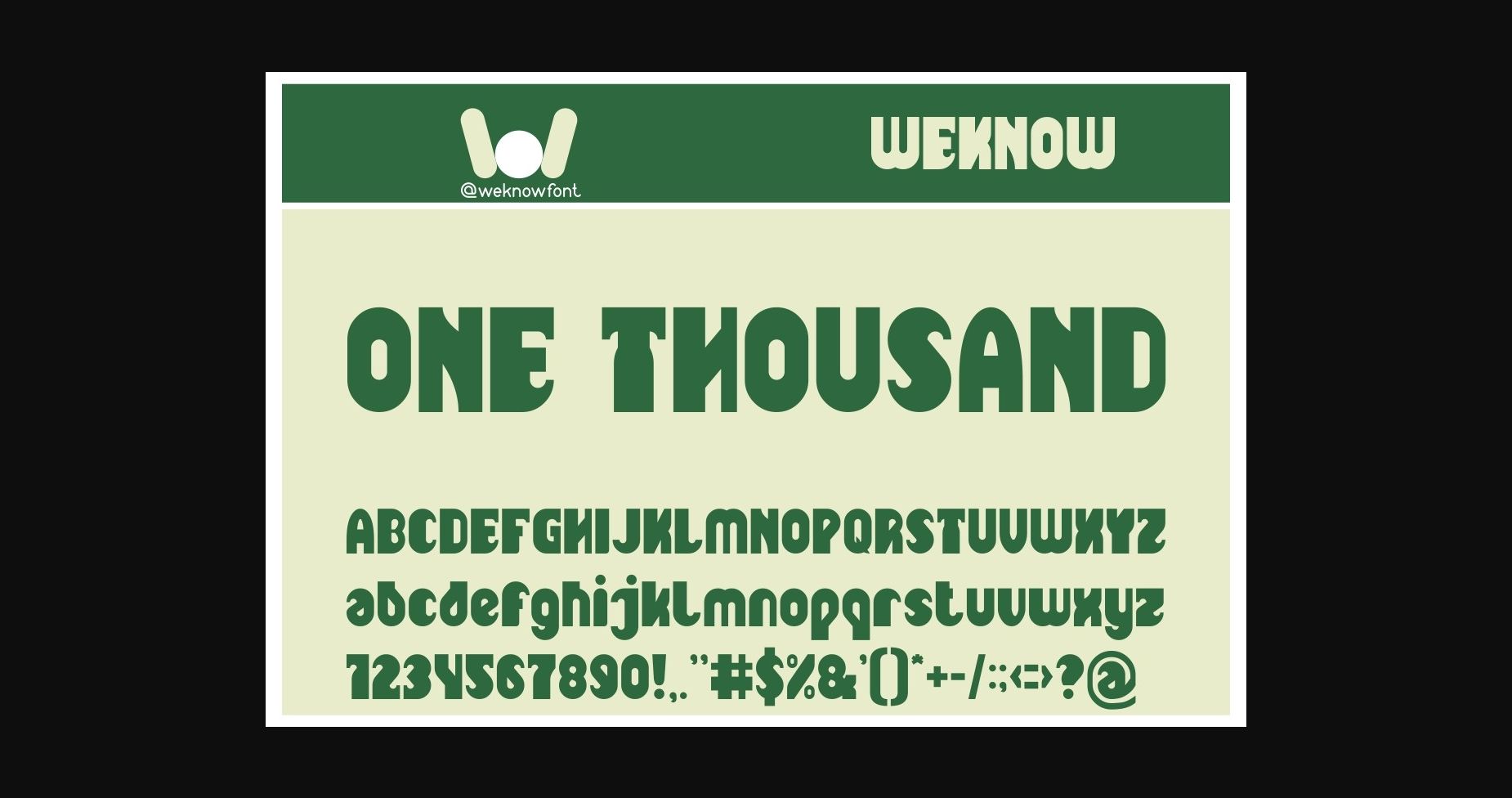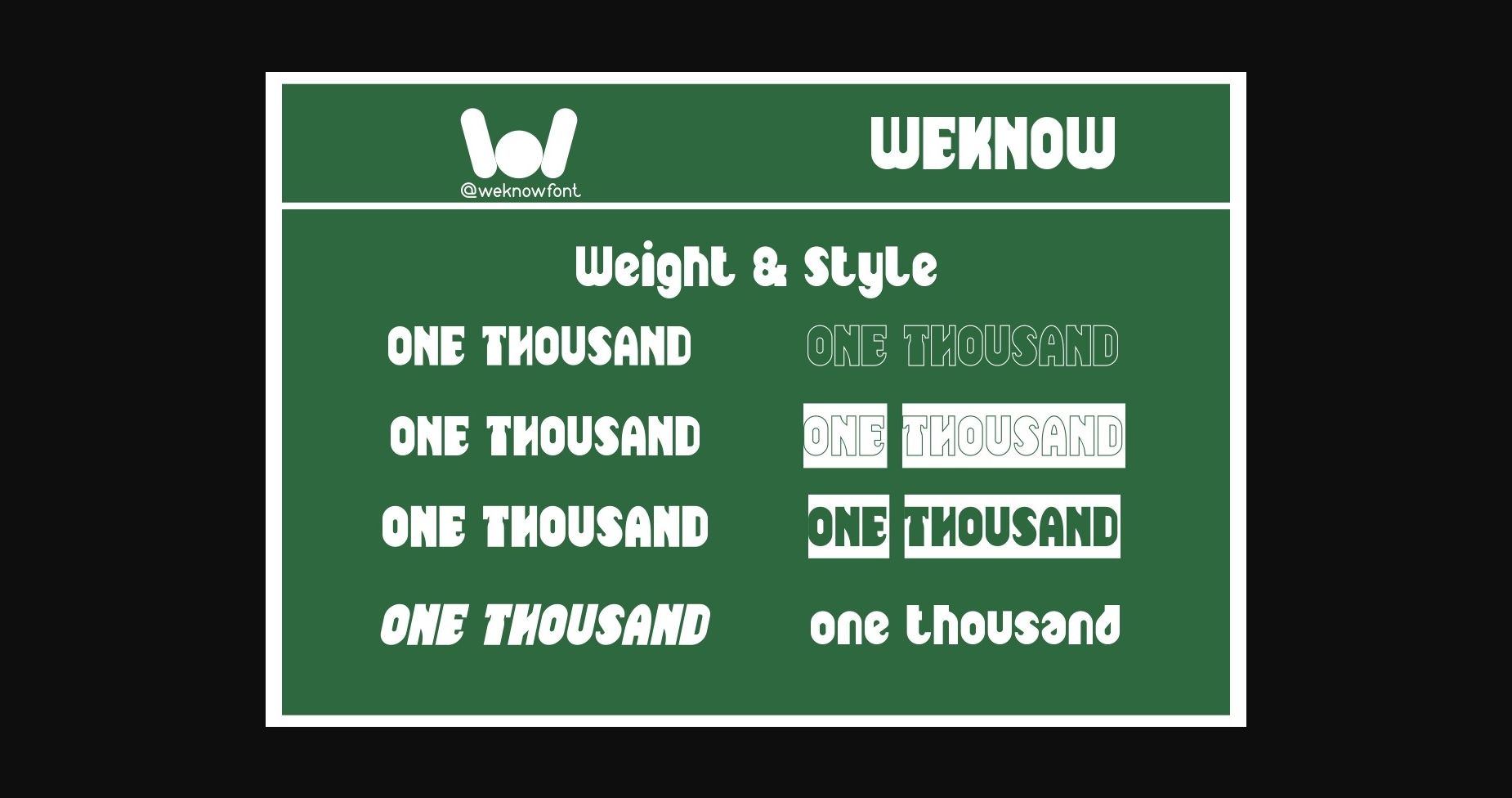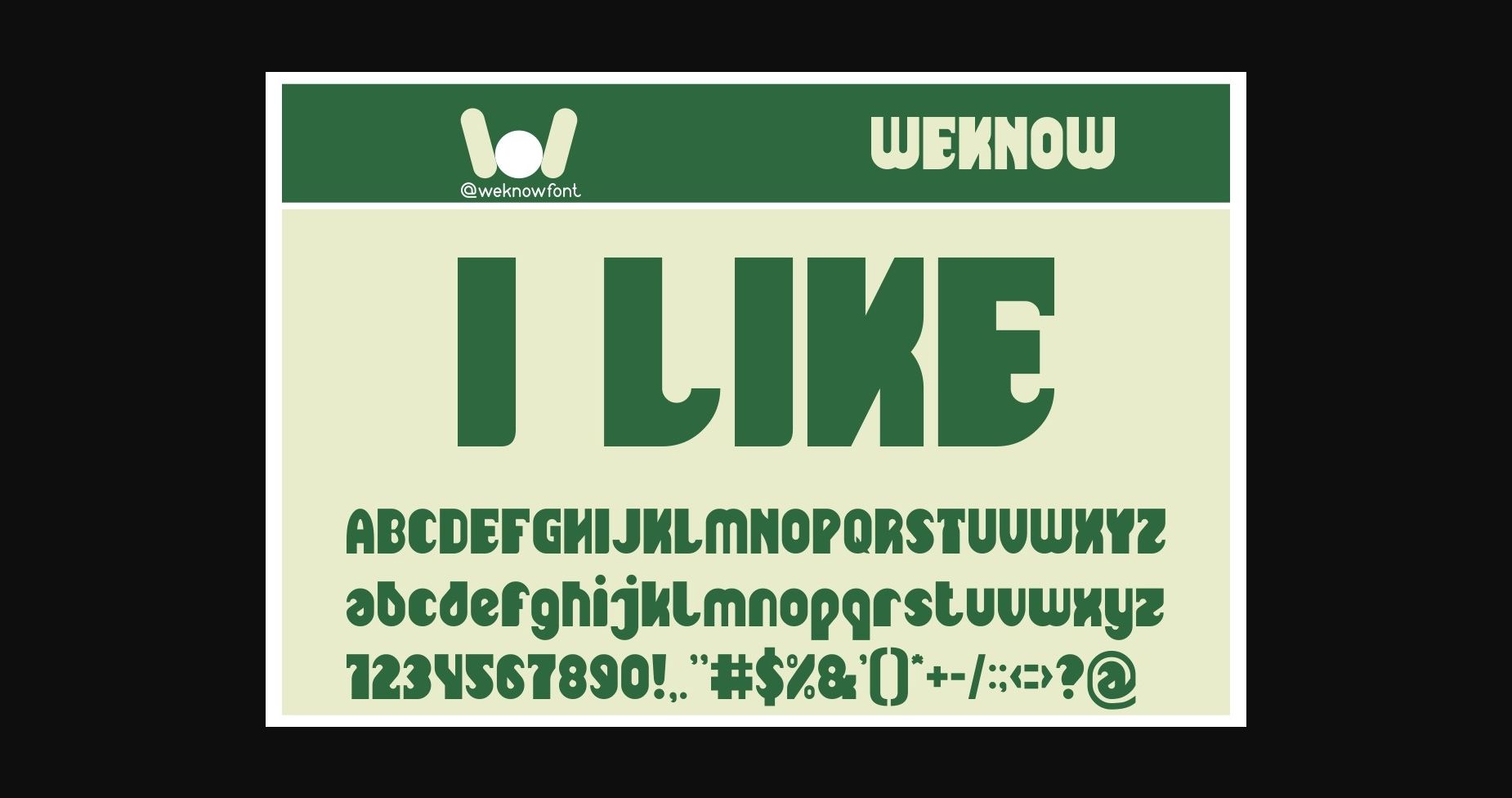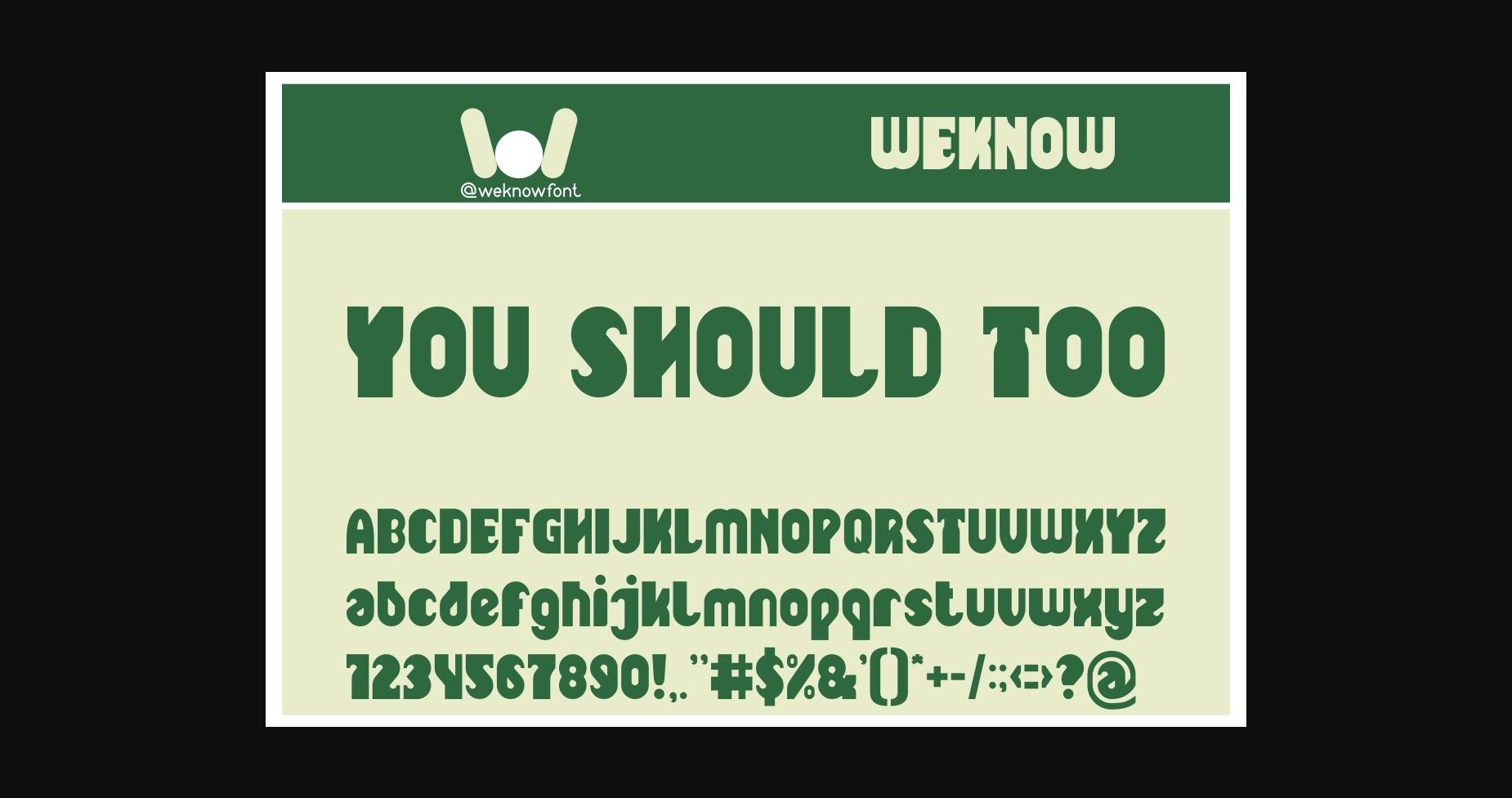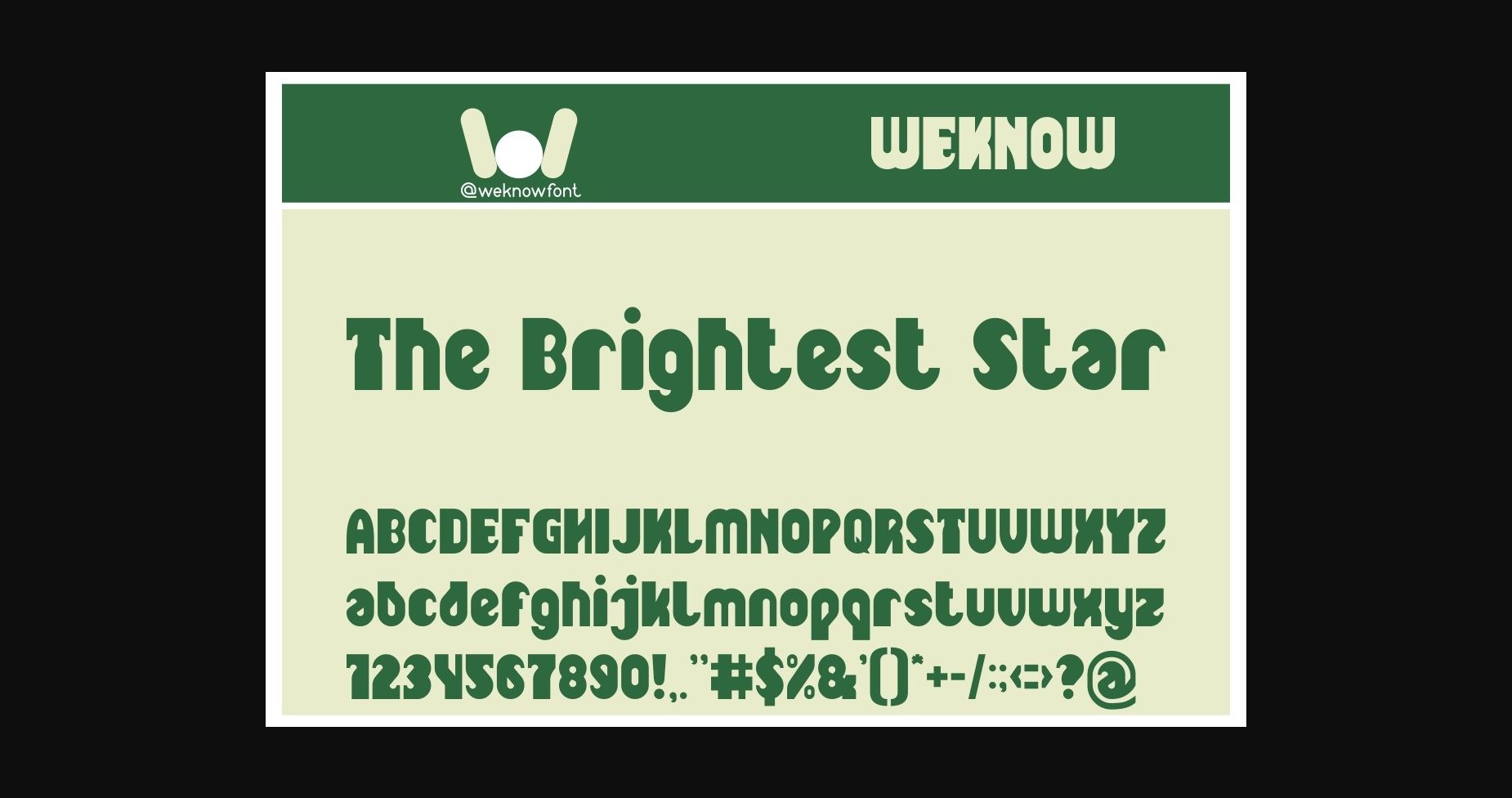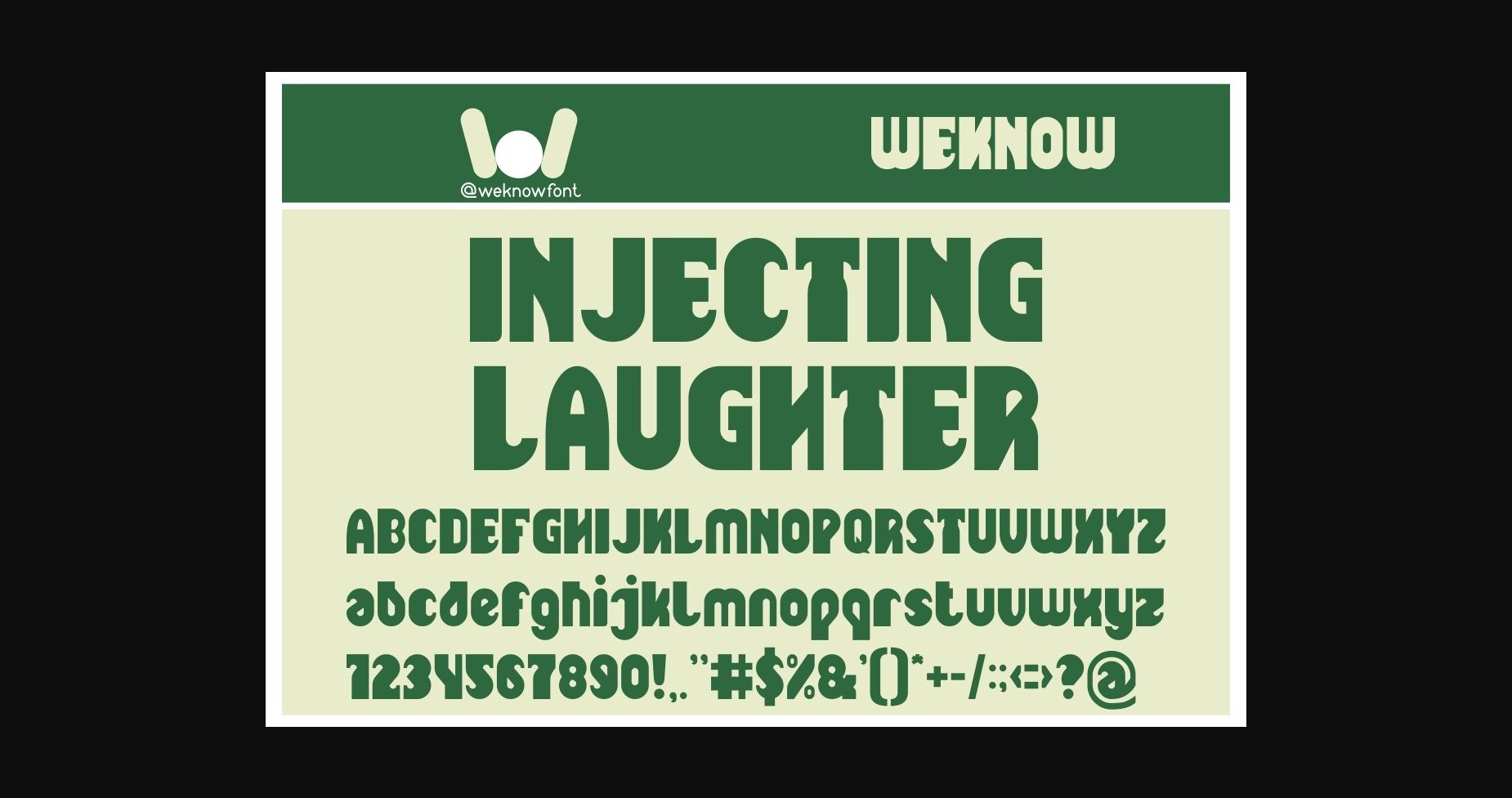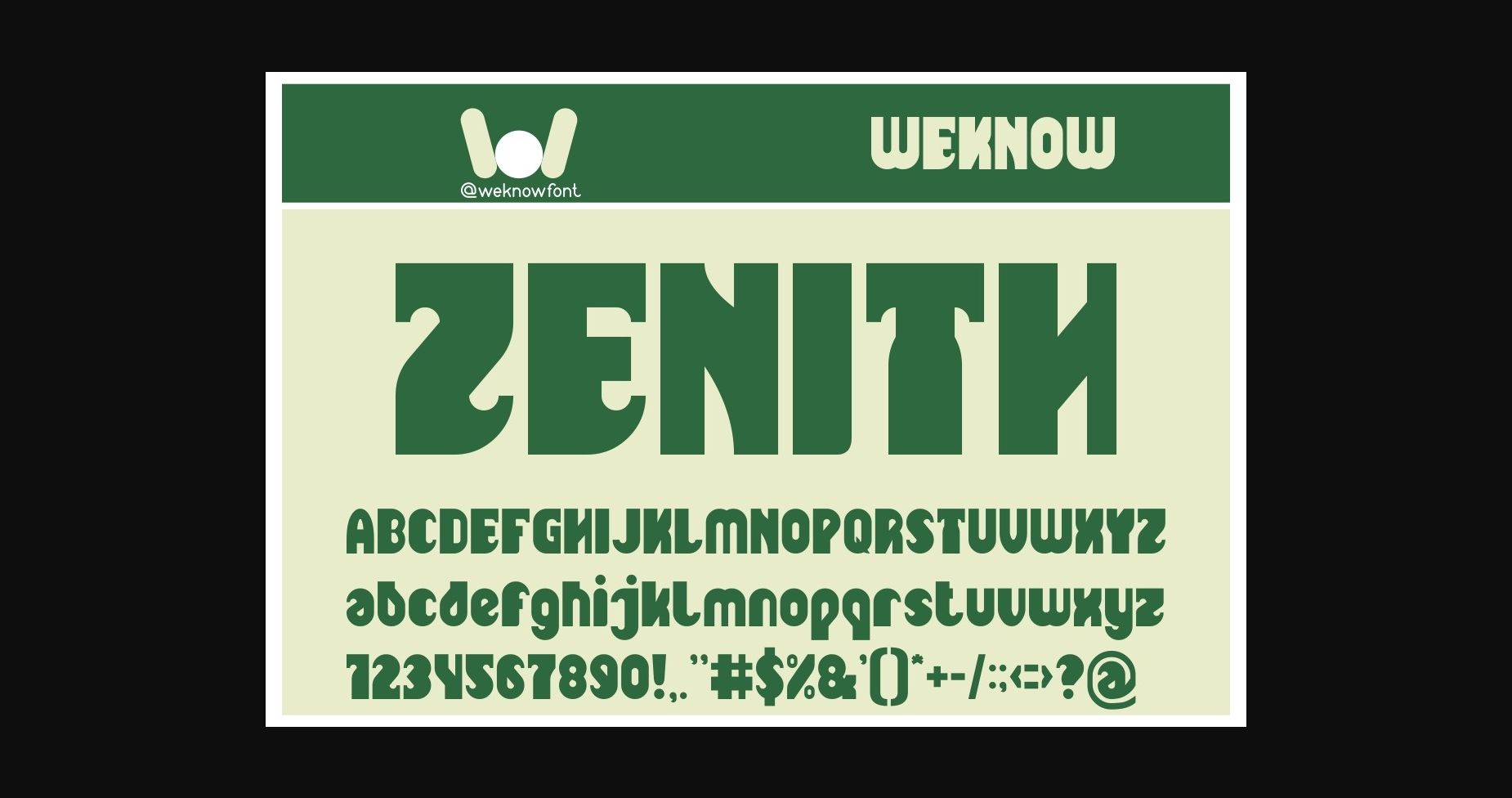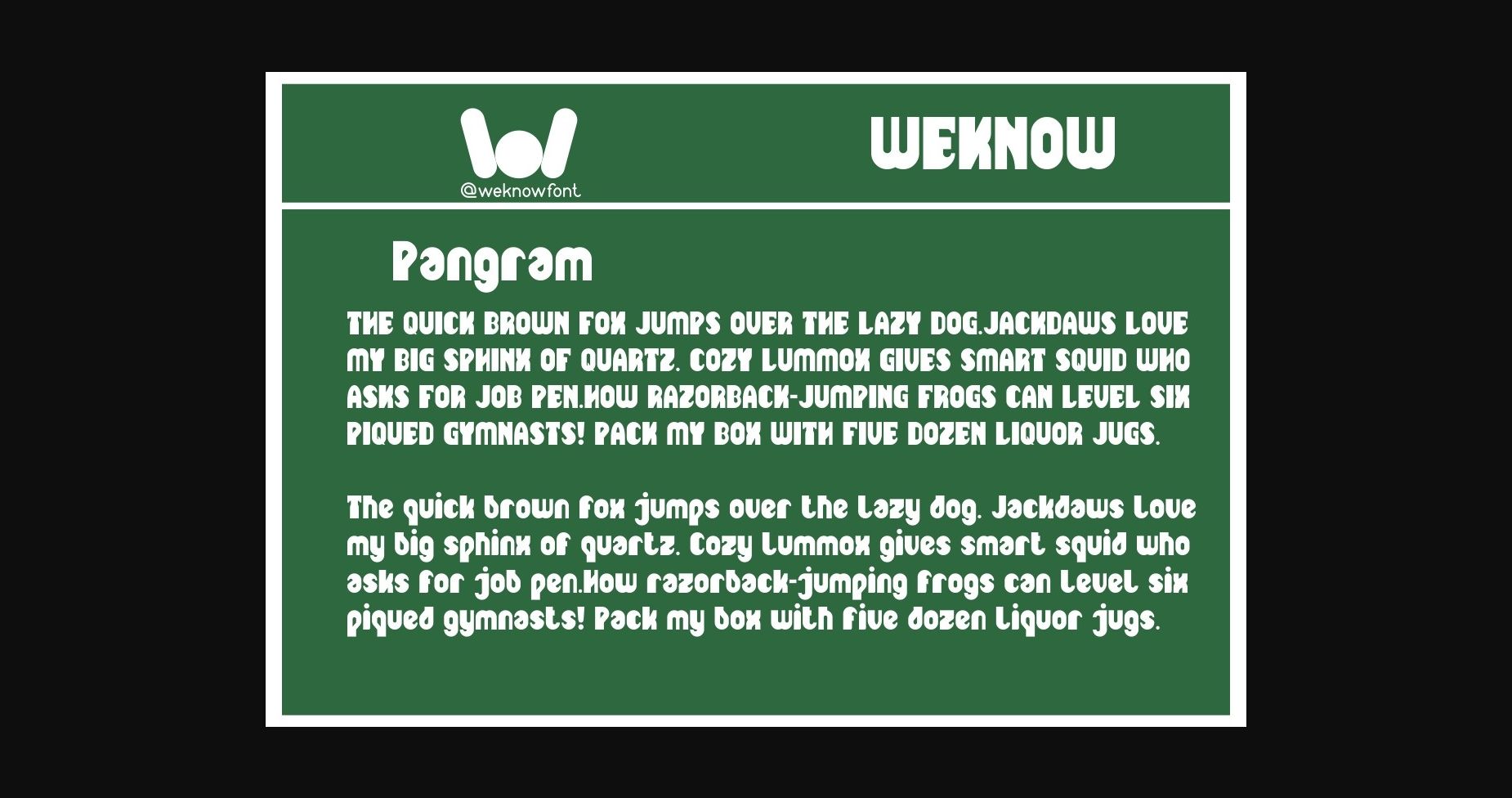
One Thousand Font
About One Thousand Font
One thousand is a fancy sans serif font suitable for a logo, logotype, headline, corporate identity, brand identity, apparel industry, poster, music, movie, game, magazine, book, comic, cartoon, YouTube, Instagram, website, or any of your creative design projects.